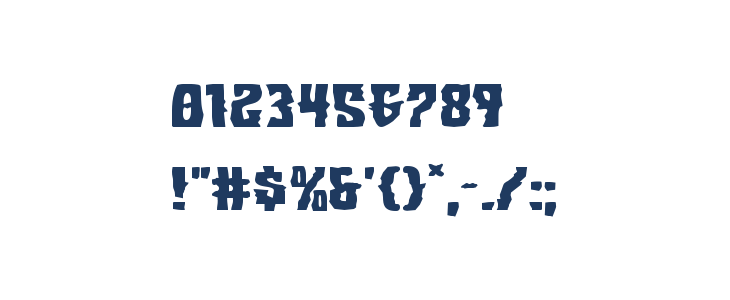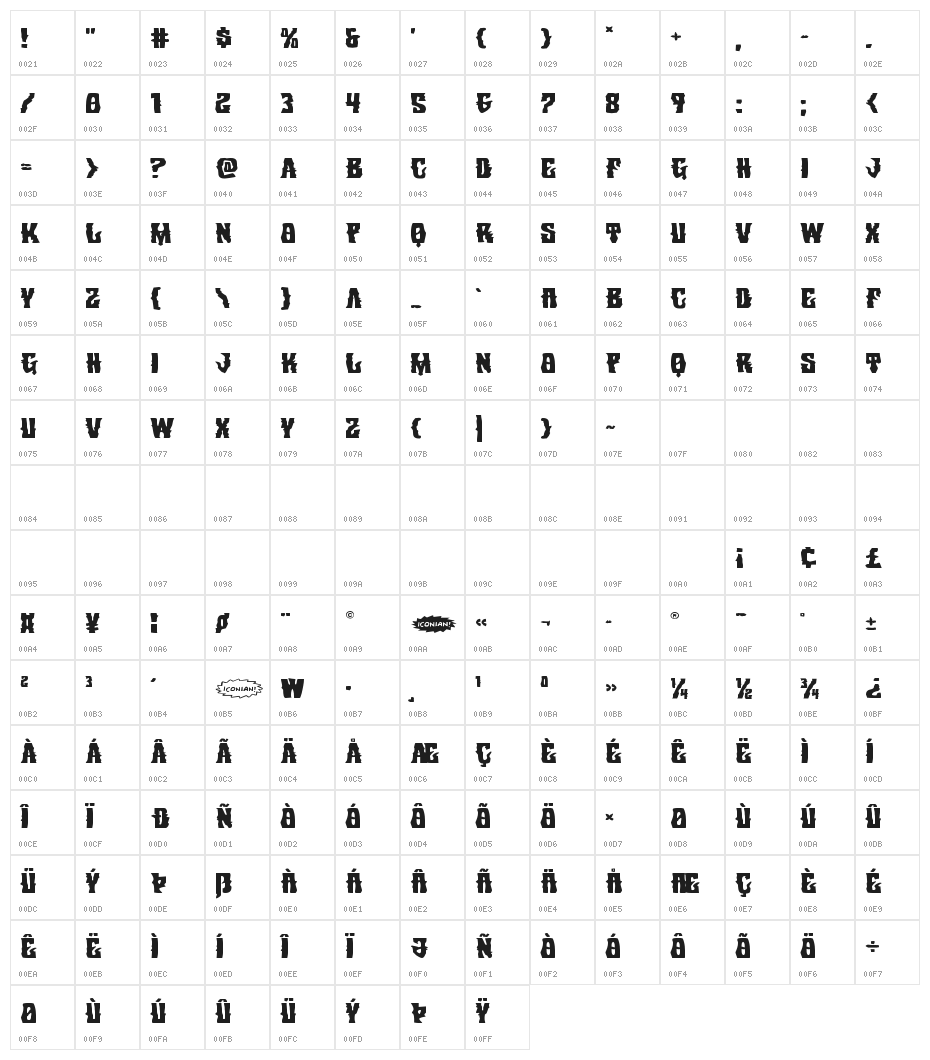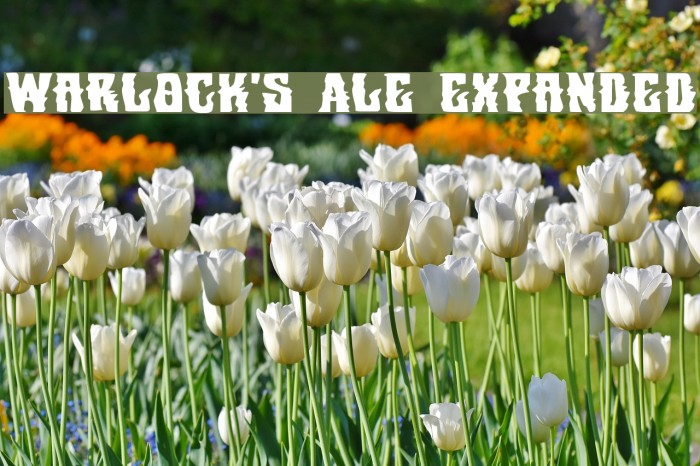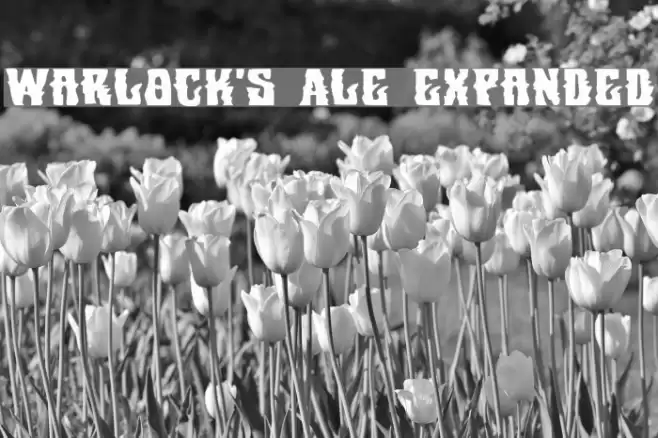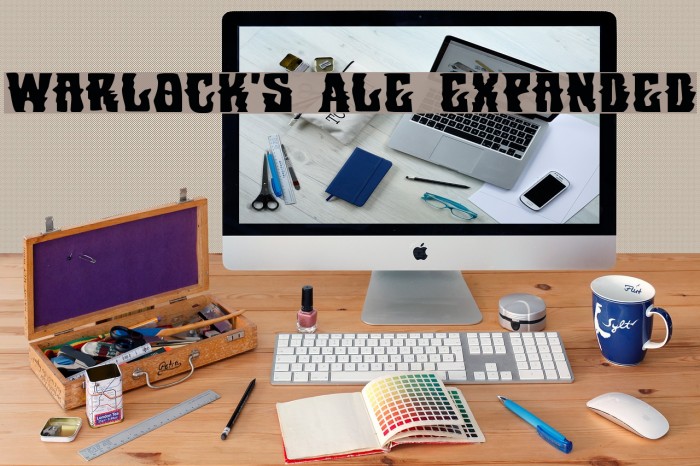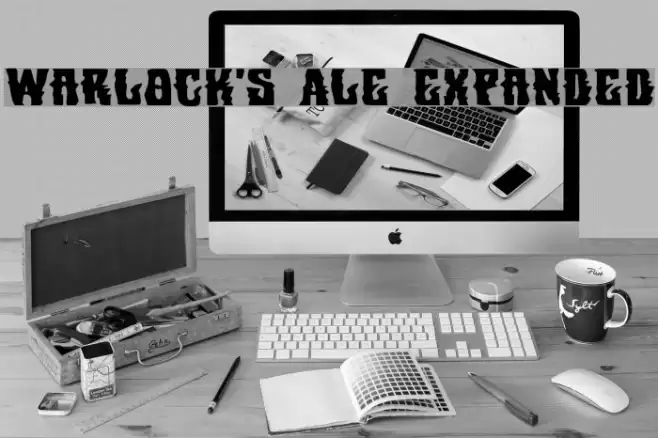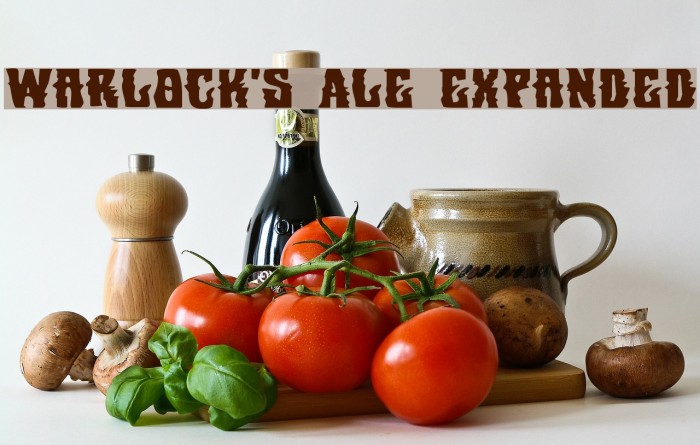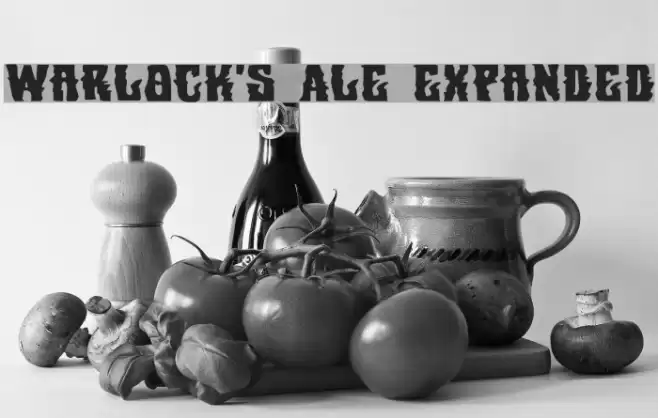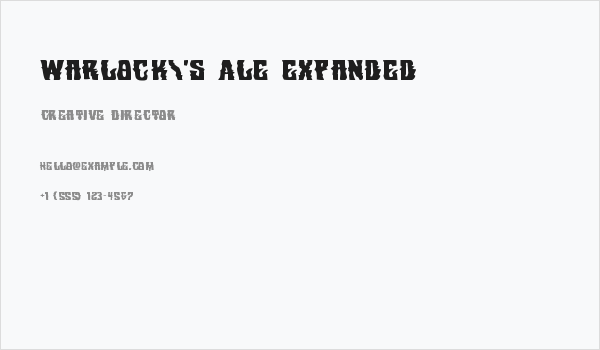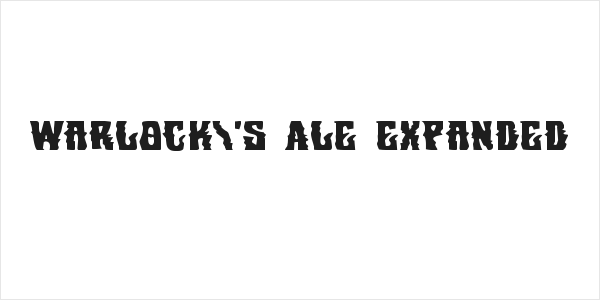
Warlock's Ale Expanded Font
Warlock's Ale Expanded Description
This font features a bold, decorative style with a distinct, rugged appearance. The characters are heavily stylized with sharp, angular edges and irregular contours, giving them a unique, almost mystical look. The uppercase and lowercase letters maintain a consistent design theme, with exaggerated serifs and a slightly distressed texture that adds to the font's dramatic flair. Numbers and special characters are equally bold and maintain the same thematic elements, ensuring a cohesive look across all glyphs. This font is perfect for projects that require a strong, eye-catching typeface with a touch of fantasy or gothic influence.
| Proposed Projects | Ideal for fantasy-themed posters, book covers, video game titles, and Halloween event promotions. |